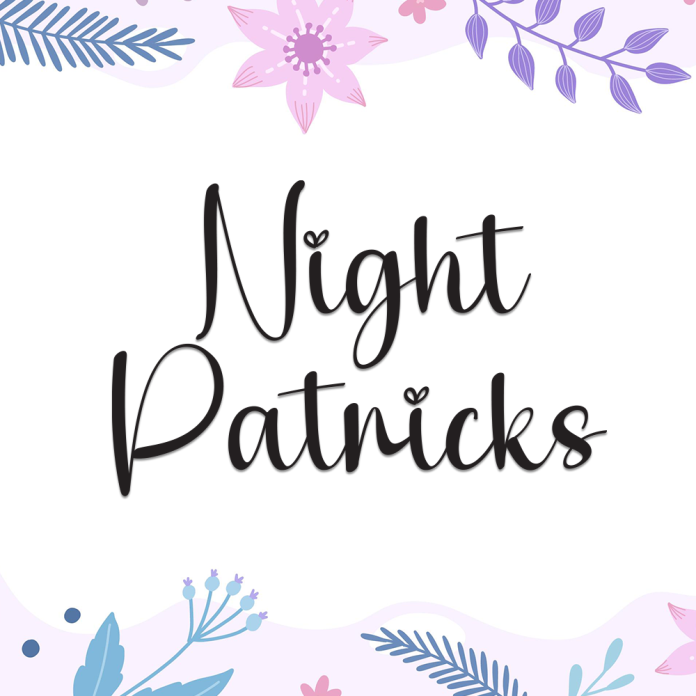
Night Patricks is a smooth and elegant handwriting font that feels both gentle and expressive. With fluid strokes and a relaxed rhythm, this font is perfect for personal notes, wedding stationery, brand signatures, and poetic designs that need a soft, nighttime charm.
Handwritten style with natural flow
Elegant and slightly whimsical character
Great for branding, invitations, journals, and quotes
Let Night Patricks bring a soft and stylish glow to your midnight creations.